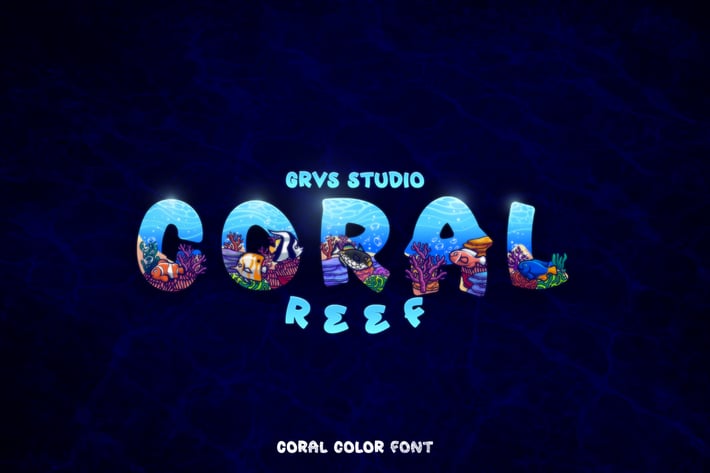
Coral Reef Colorful Decorative Font
GRVS Coral Reef Colorful Decorative Font is our new item that is suitable for your team logo, or community logo with a Ocean, Sea, Marine and Coral theme.
Great for Logo, Sticker, Jersey, Invitation Card, Brochures, etc.